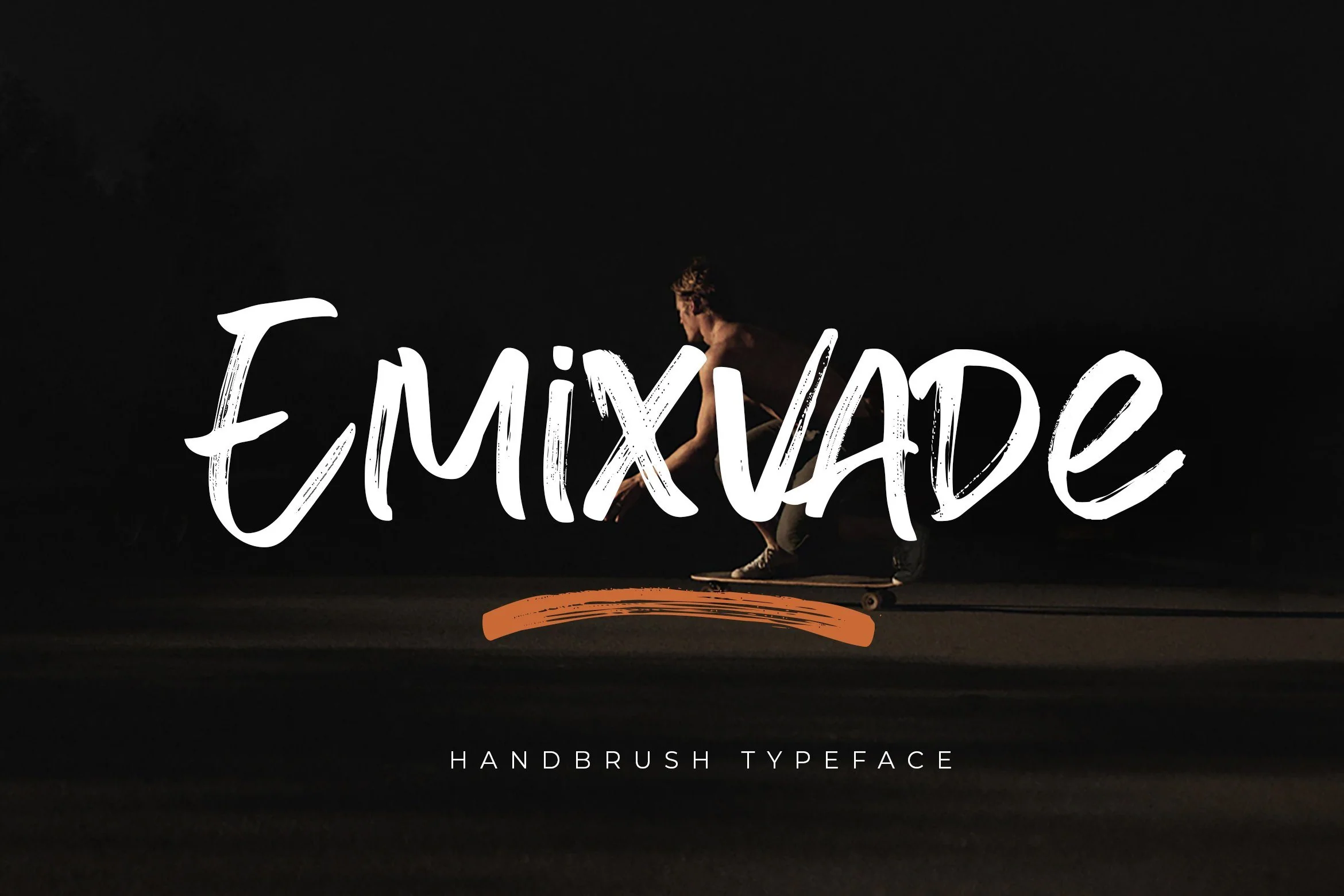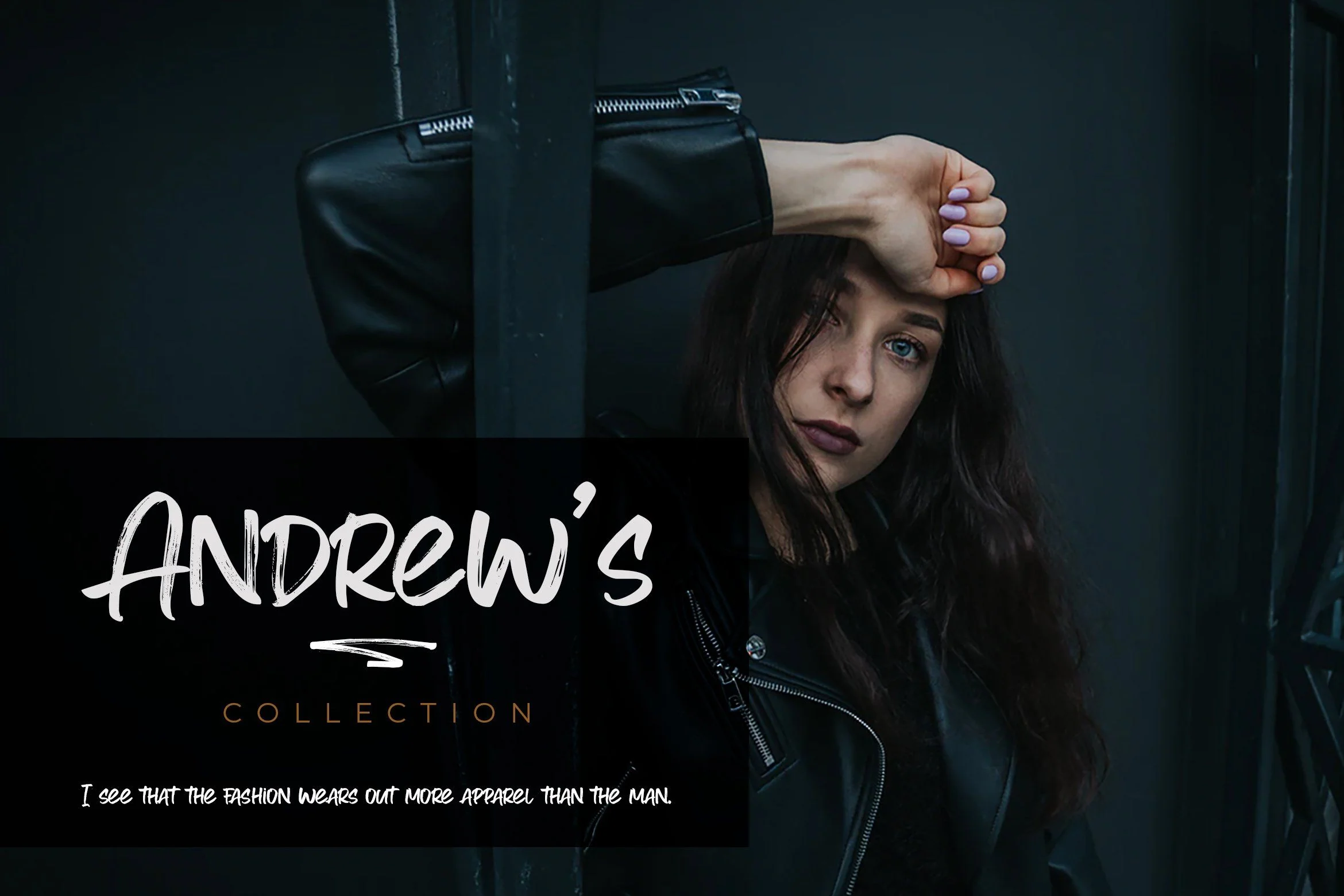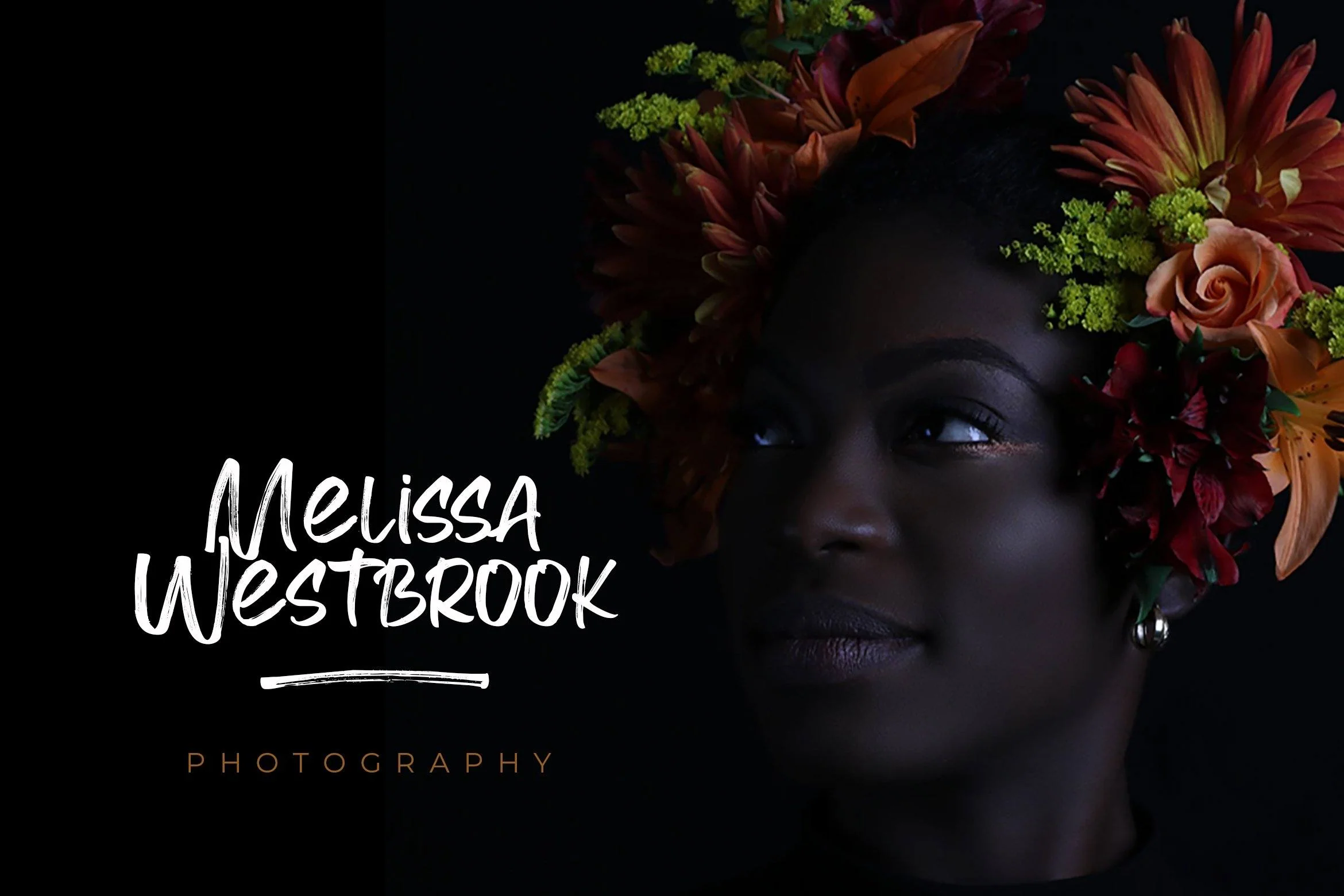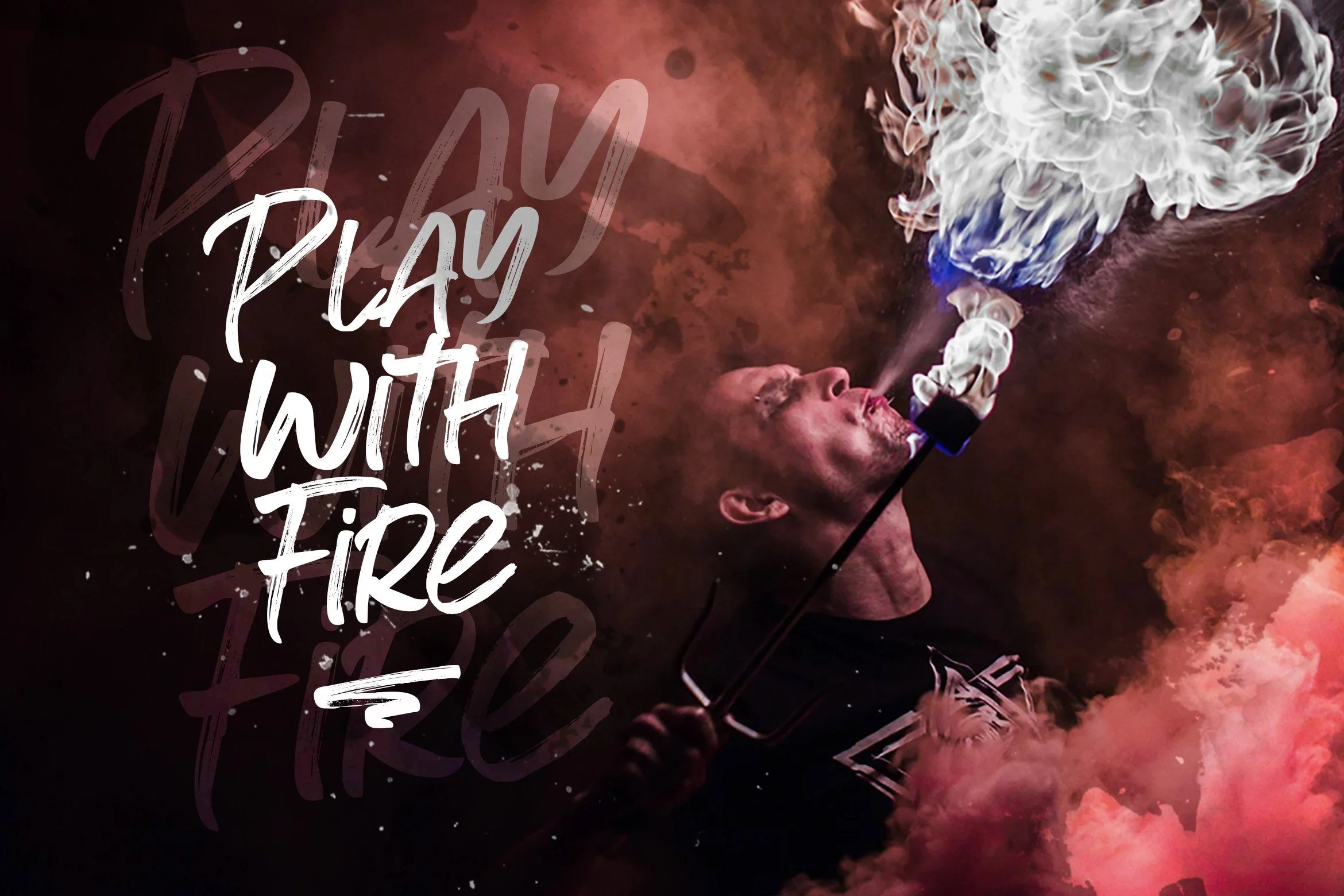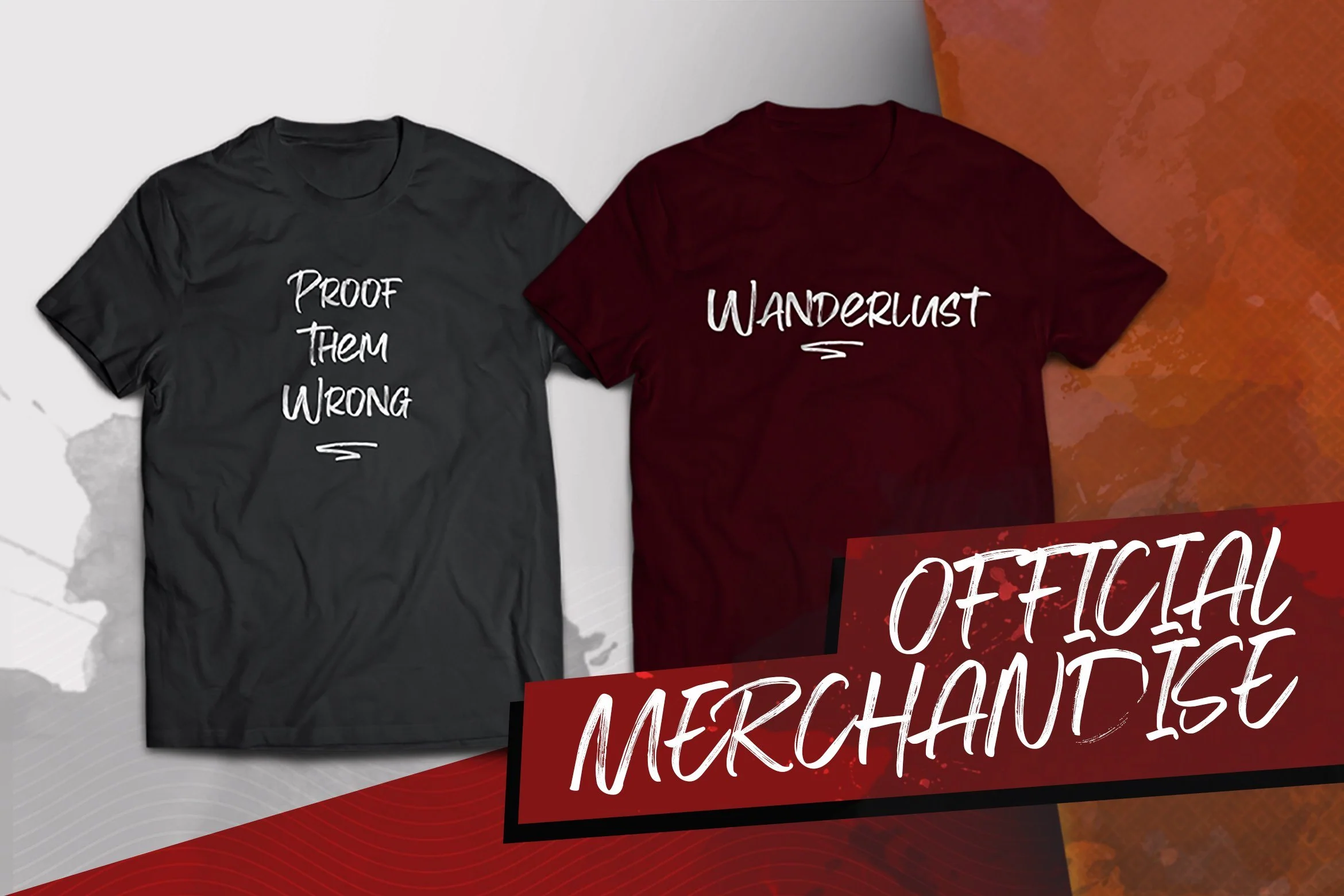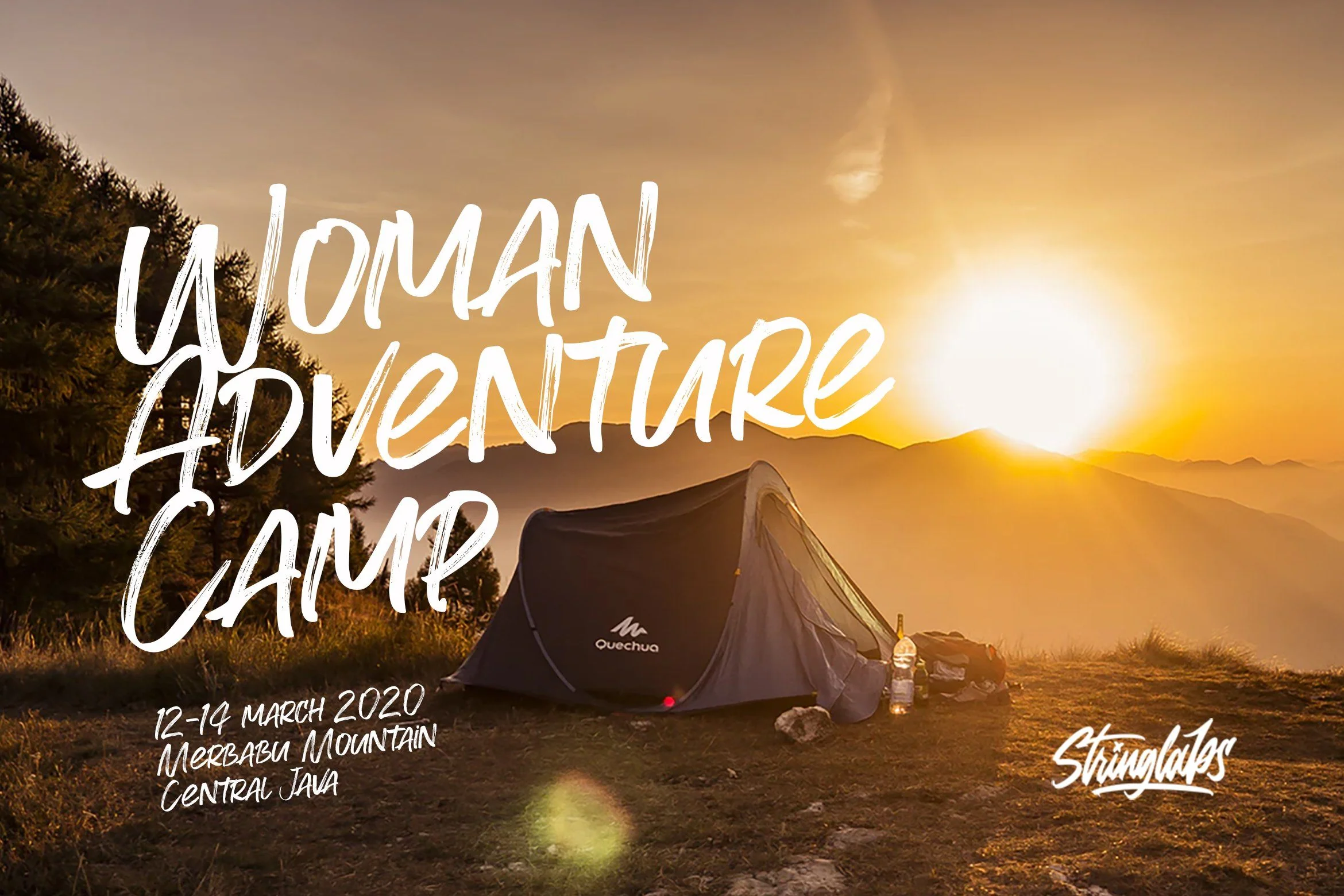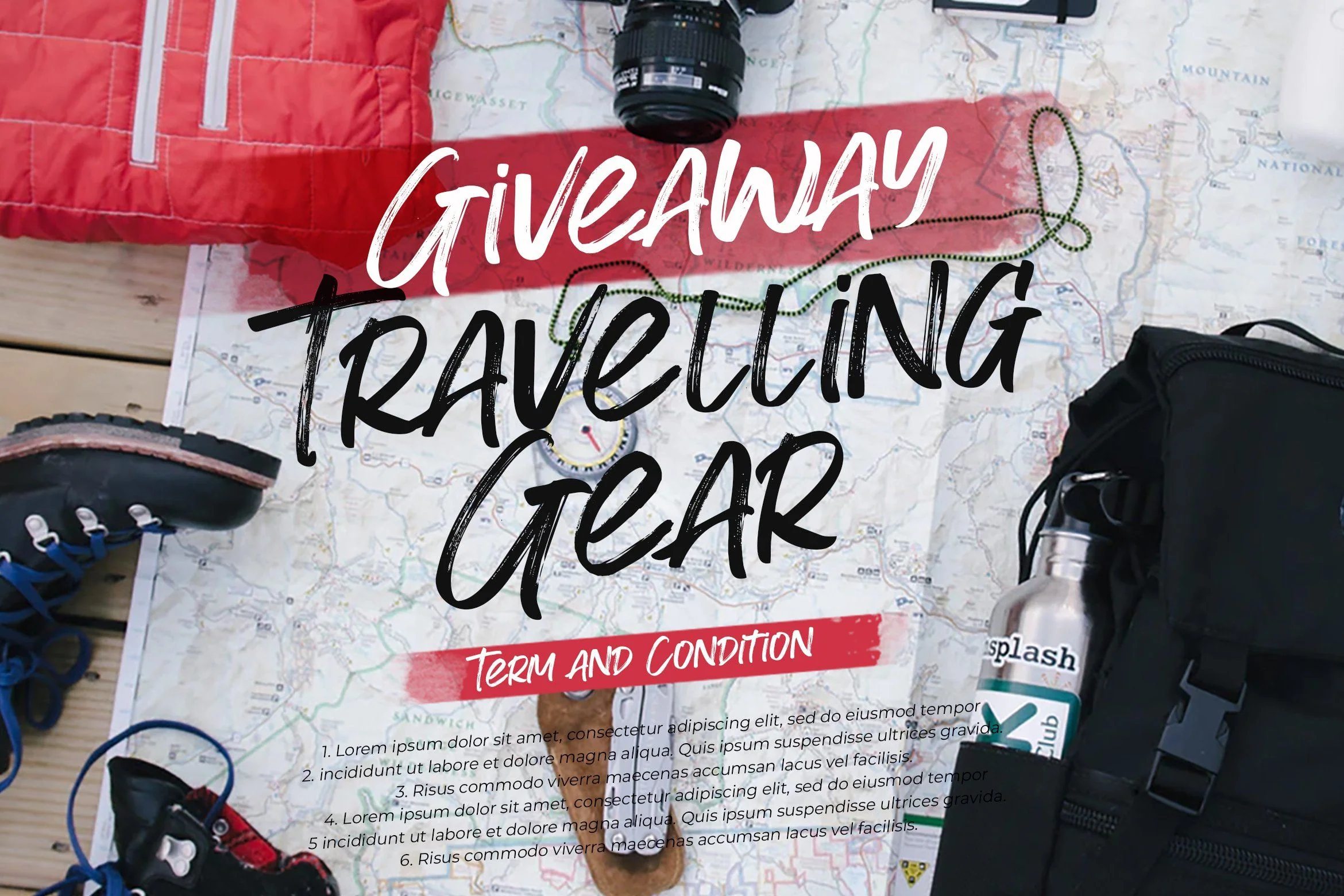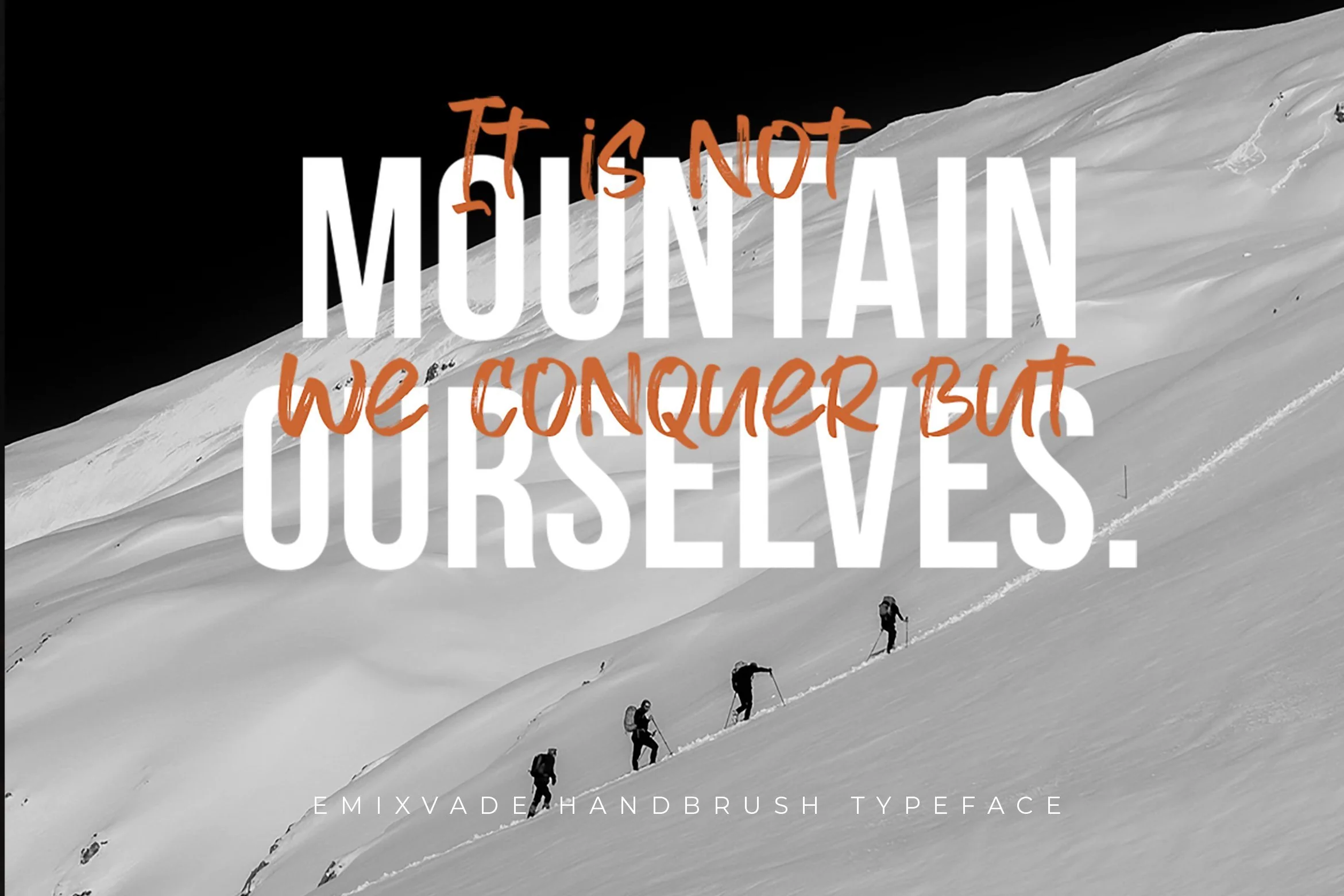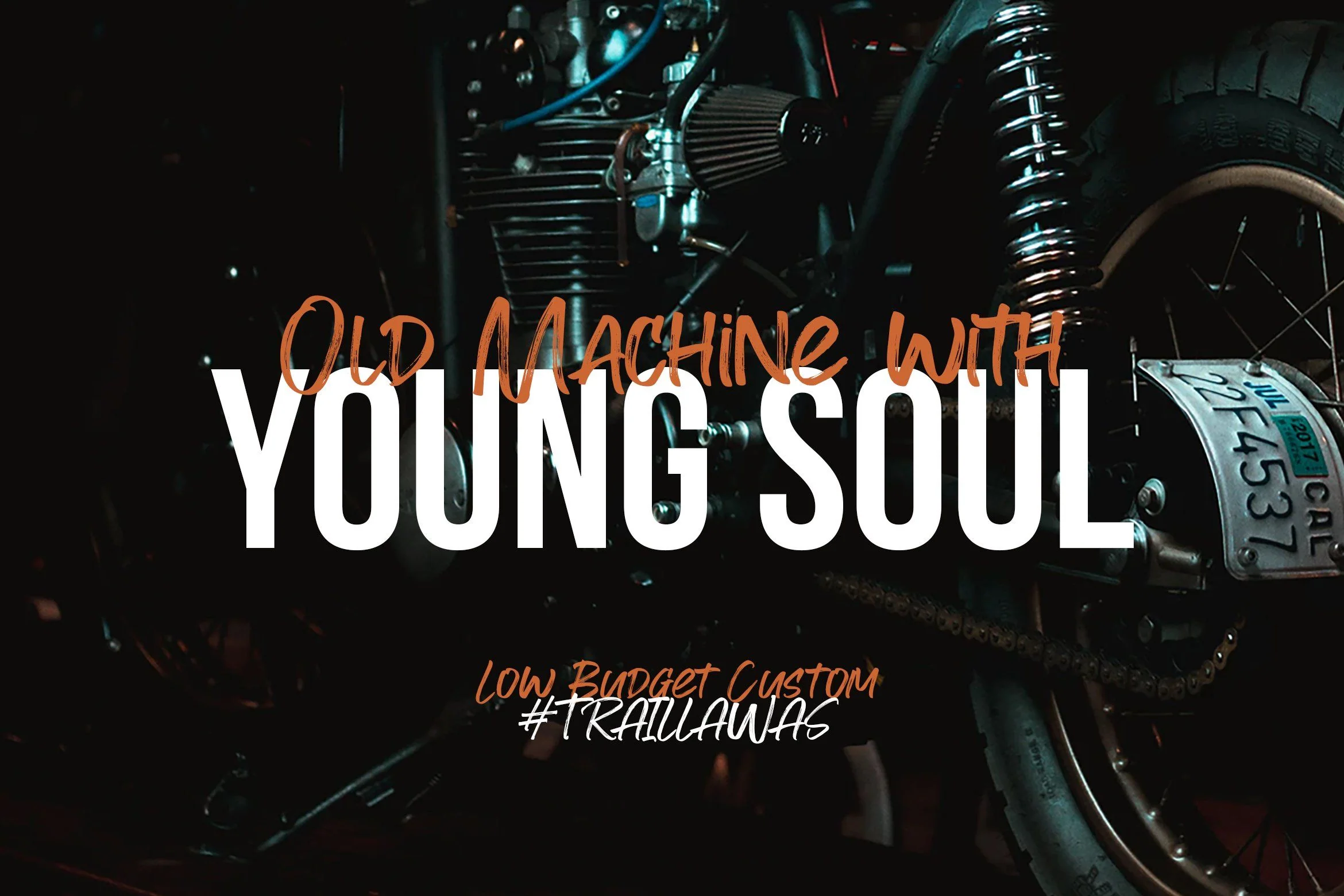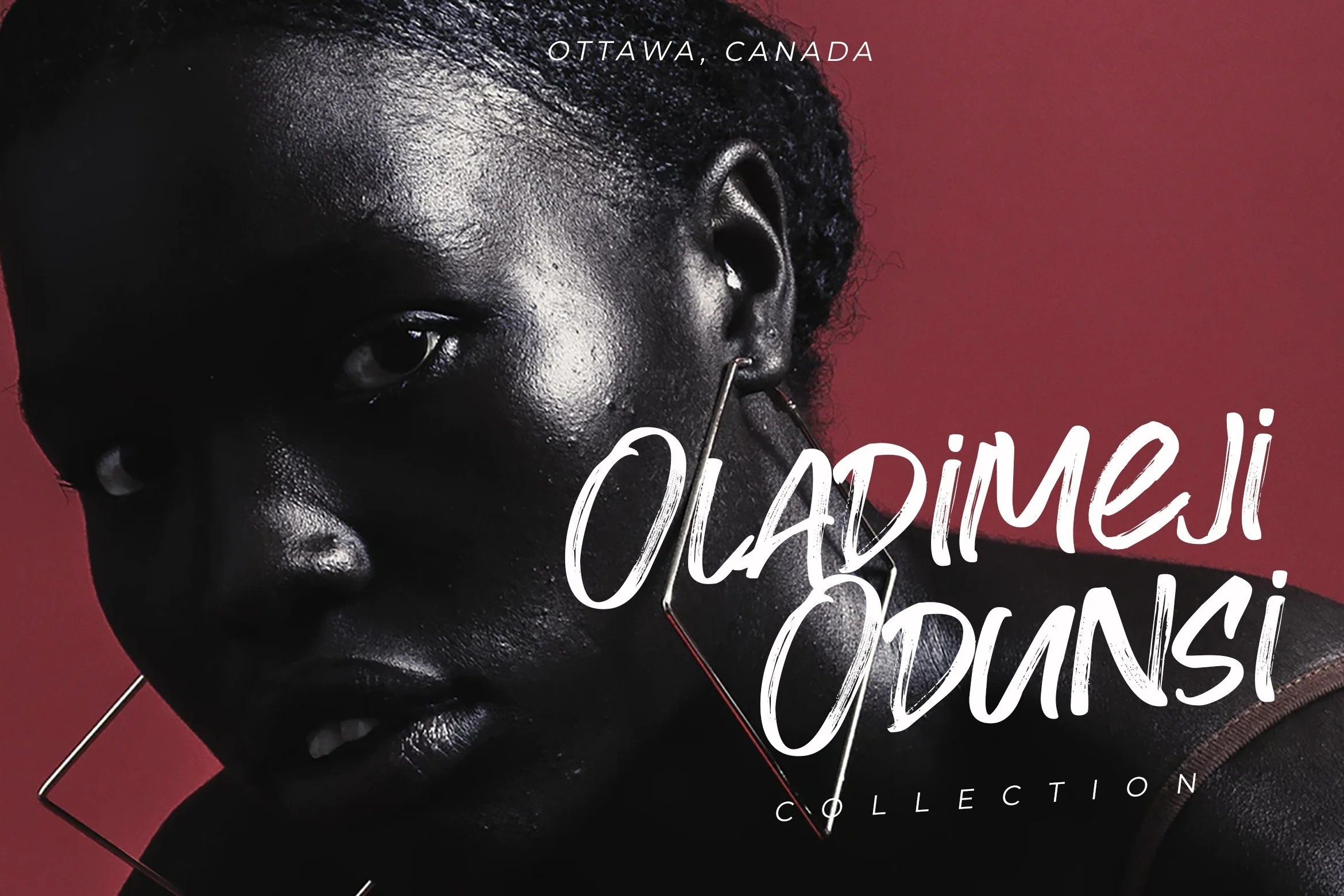
Emixvade - Handbrush Font
Introducing Emixvade - Handbrush Font
Emixvade is a Handbrush Typeface. It's a Handbrush Script Font with authentic style.
This font is made with a brush pen with very careful techniques, so the results are charismatic and have enchanting characteristics.
- Extra Swash